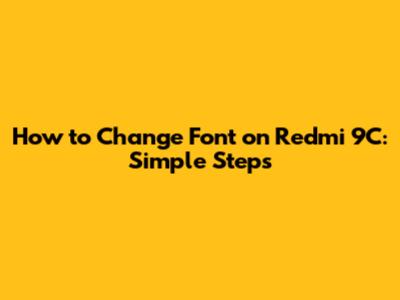
- Improve Readability: Some fonts are just easier to read than others. If you struggle with the default font, switching to a clearer one can make a big difference.
- Add Personality: Your phone is an extension of you. Changing the font lets you express your personal style.
- Reduce Eye Strain: A well-chosen font can reduce eye strain, especially if you spend a lot of time reading on your phone.
- Freshen Up Your Device: A new font can make your phone feel brand new without actually buying a new device.
- Open the Themes App: Look for the Themes app on your home screen or in the app drawer. It usually has a colorful icon.
- Navigate to Fonts: Once the Themes app is open, look for the "Fonts" section. It might be in the main menu or in a separate category.
- Browse Available Fonts: You'll see a list of available fonts. Some are free, while others might require a purchase. Take your time to browse and find one you like.
- Preview the Font: Before applying a font, you can preview it to see how it looks on your phone. This is a great way to make sure it's readable and fits your style.
- Download and Apply: Once you've found a font you like, download it. After it's downloaded, you can apply it to your system. Your phone might need to restart to apply the changes.
- Confirm the Change: After the restart, your new font should be applied! If you don’t like it, you can always go back and choose a different one.
- Open the Google Play Store: Find the Play Store icon on your home screen or in the app drawer and open it.
- Search for Font Apps: Type "font apps" or "font changer" in the search bar and hit enter. You'll see a list of available apps.
- Choose a Reputable App: Look for apps with good ratings and reviews. Some popular options include HiFont and iFont. Be cautious and read reviews to avoid downloading malicious apps.
- Download and Install: Once you've chosen an app, download and install it on your Redmi 9C.
- Grant Permissions: Open the app and grant the necessary permissions. Some apps might require access to your storage or system settings.
- Browse and Apply Fonts: The app will show you a list of available fonts. You can preview them before applying. Follow the app's instructions to apply the font to your system.
- Restart Your Phone: In most cases, you'll need to restart your phone to apply the changes.
- Readability is Key: Make sure the font is easy to read. Avoid fonts that are too decorative or have thin lines, as they can strain your eyes.
- Consider Font Size: Choose a font that looks good at different sizes. You might want to increase the font size for better readability, so make sure the font scales well.
- Test Different Fonts: Don't be afraid to try out a few different fonts before settling on one. Preview them and see how they look in different apps and settings.
- Match Your Style: Pick a font that matches your personal style. If you prefer a clean and modern look, go for a sans-serif font. If you like something more traditional, try a serif font.
- Check Language Support: Ensure the font supports all the languages you use on your phone. Some fonts may not have characters for certain languages.
- Font Not Applying: If the font doesn't apply after you've downloaded and selected it, try restarting your phone. If that doesn't work, clear the cache of the Themes app or the third-party font app.
- Font Looks Weird: Some fonts might not be compatible with your phone's system. If a font looks distorted or has missing characters, try a different one.
- App Crashing: If the Themes app or a third-party font app is crashing, try updating it to the latest version. If the problem persists, uninstall and reinstall the app.
- Slow Performance: Some fonts can slow down your phone's performance. If you notice your phone is running slower after changing the font, switch back to the default font or try a lighter font.
Hey guys! Want to personalize your Redmi 9C by changing the font? You've come to the right place. Changing the font on your phone can give it a fresh, new look and make it more enjoyable to use. In this article, we'll walk you through the simple steps to change the font on your Redmi 9C, making your phone truly yours. This comprehensive guide ensures that even the most tech-challenged individuals can easily customize their device. Let’s dive in and explore how you can give your Redmi 9C a unique touch with a new font!
Why Change the Font on Your Redmi 9C?
Before we get started, let's talk about why you might want to change the font on your Redmi 9C. The default font might be okay, but it can get boring after a while. Changing the font can:
Changing the font on your Redmi 9C is a simple way to enhance your overall user experience. By selecting a font that suits your preferences, you can make your phone more comfortable to use and more visually appealing. It’s a small change that can have a big impact on how you interact with your device every day. Plus, it's a fun way to keep your phone feeling fresh and exciting.